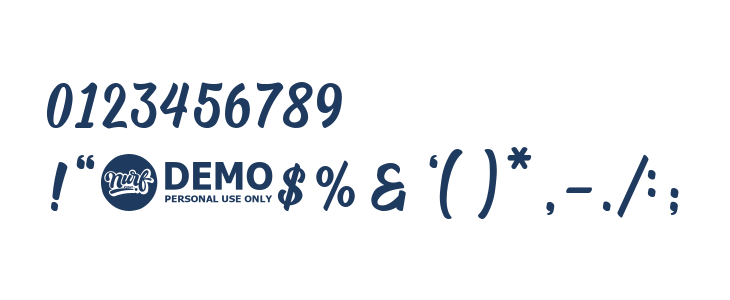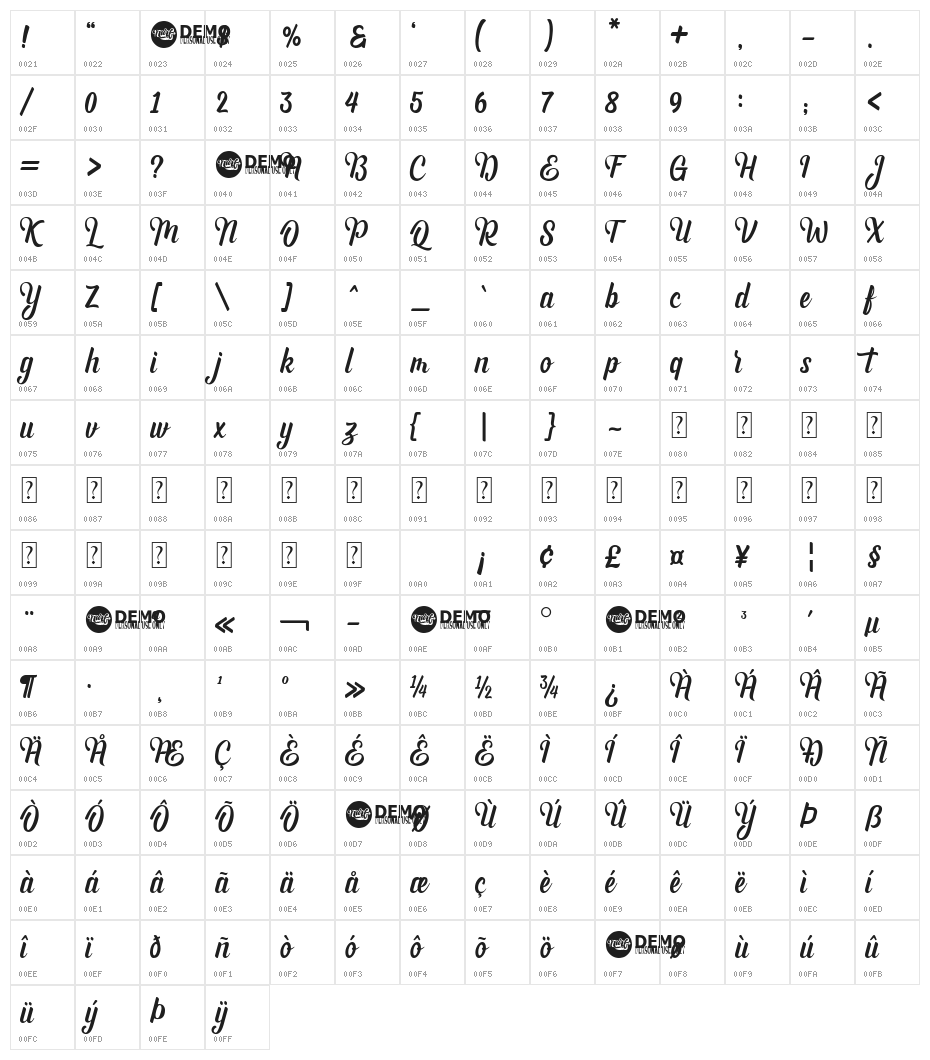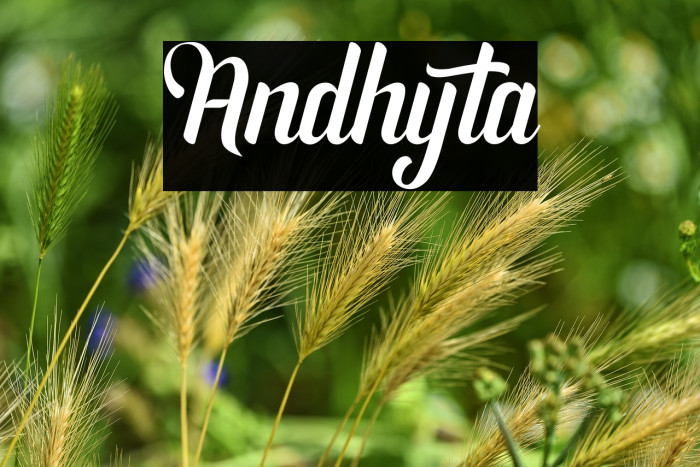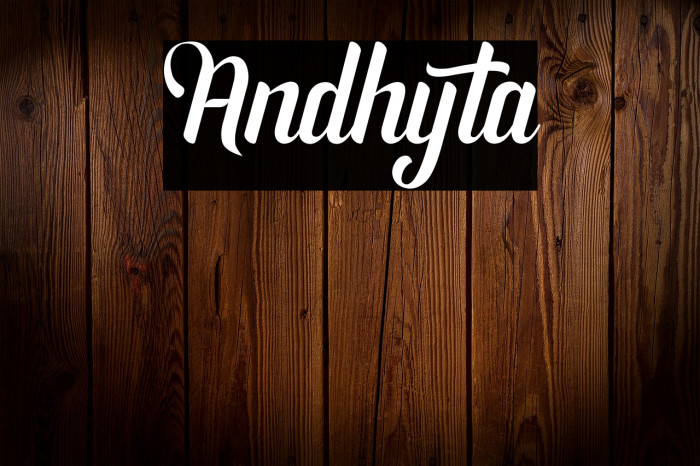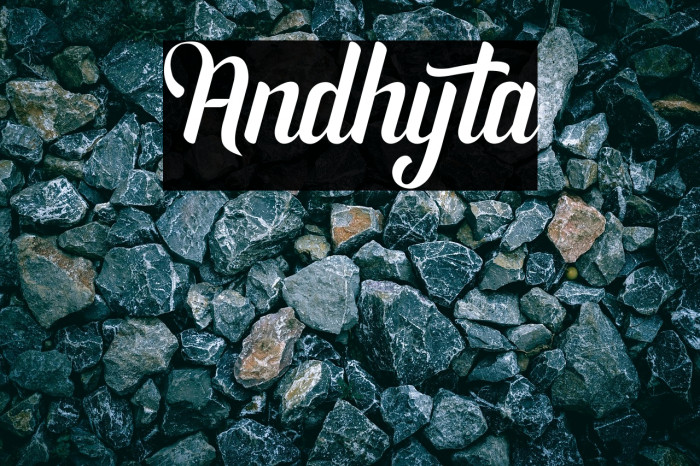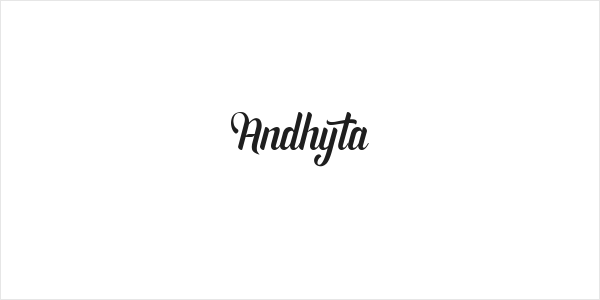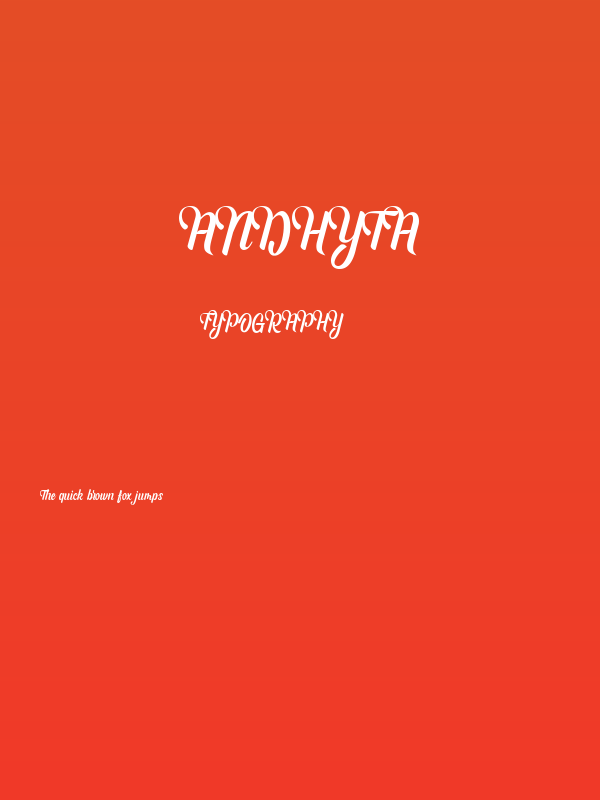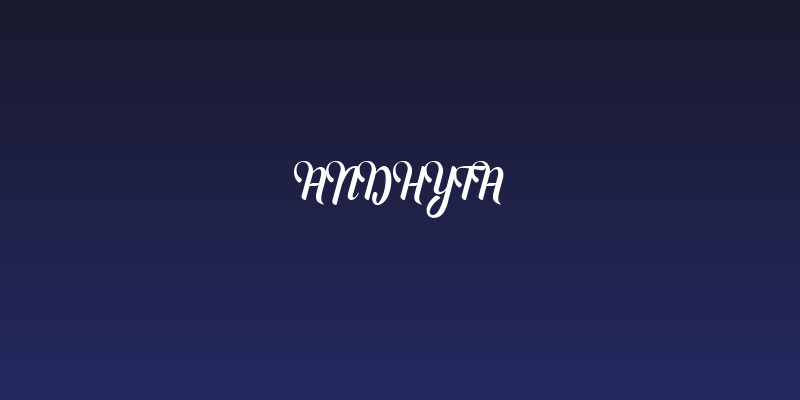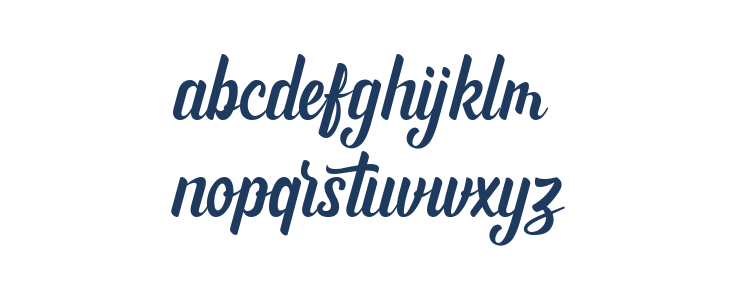
Andhyta Font
Andhyta Description
This font features a dynamic and flowing script style, characterized by its elegant curves and smooth transitions between letters. The uppercase letters are bold and expressive, with a slight slant that adds a sense of movement and grace. The lowercase letters maintain a consistent style, complementing the uppercase with their rounded forms and fluid connections. Numbers are clear and legible, following the same stylistic cues as the letters. Special characters are thoughtfully designed to match the overall aesthetic, making this font versatile for various applications.
Overall StyleElegant
Use CaseLogos, Invitations, Branding
Proposed ProjectsIdeal for wedding invitations, branding, logo design, and elegant packaging.